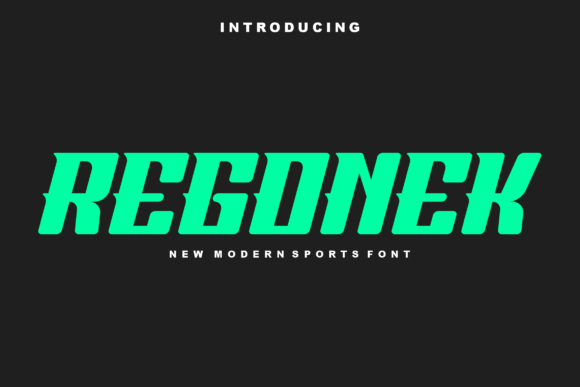
Regonek: The Font That Will Make Your Tech Resume Stand Out
In the fiercely competitive world of tech, your resume needs to stand out from the crowd. Regonek, a sleek and modern display font, is the perfect way to make a bold statement and showcase your skills and experience.
With its sharp angles and clean lines, Regonek exudes professionalism and sophistication. It's the perfect choice for resumes, cover letters, and any other materials you need to create a lasting impression.
But Regonek is more than just a pretty face. It's also incredibly versatile. Whether you're writing about your coding prowess, your project management skills, or your passion for innovation, Regonek will help you convey your message with clarity and impact.
Here are just a few reasons why Regonek is the best font for tech resumes:
* It's professional and sophisticated, making you look like a serious candidate.
* It's versatile, so you can use it for any type of resume or cover letter.
* It's easy to read, so recruiters will be able to quickly and easily skim your resume.
* It's unique, so you'll stand out from the crowd.